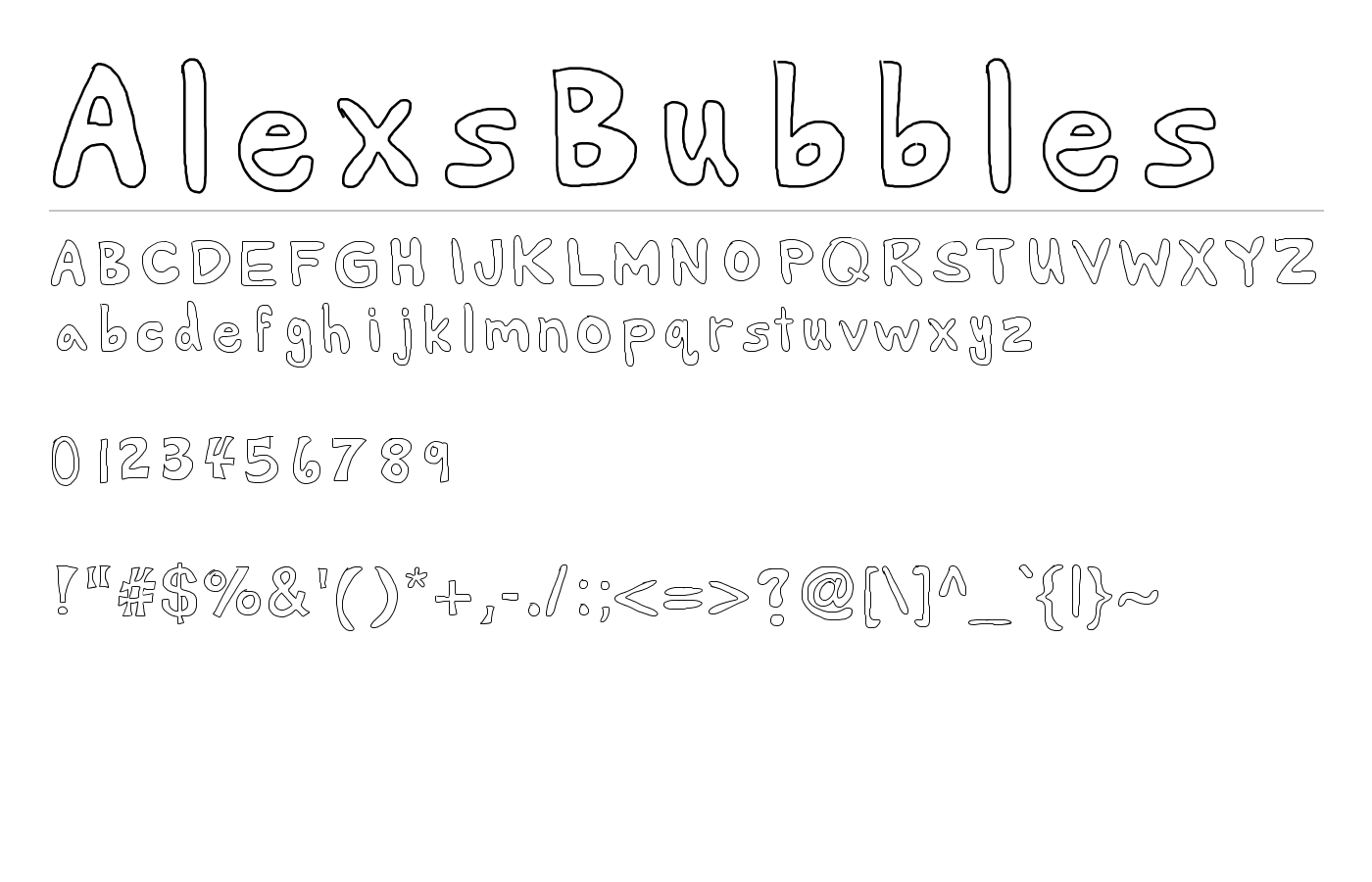
AlexsBubbles is a playful, hand-drawn sans serif font characterized by its irregular, bubbly letterforms with soft, rounded edges and a casual, informal feel. Its lightweight strokes and open shapes make it perfect for fun, creative projects like children’s books, party invitations, or whimsical branding that seeks a friendly, approachable vibe. This font works best in display settings where its unique, quirky personality can shine and bring a lighthearted touch.
AlexsBubbles Font
About AlexsBubbles Font